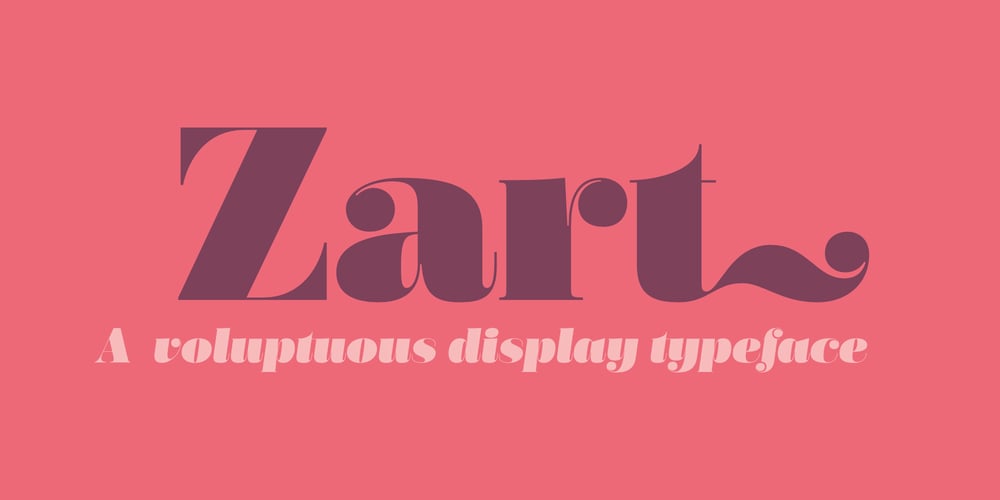
Zart Font Family was designed by Pedro Leal and published by Monotype. Zart contains 3 styles and family package options. Zart is a heavy yet delicately sensitive display typeface filled with character, a free interpretation of the classical French styles from the late eighteenth century, reimagined for modern use. While it’s vertical strokes carry the typical weight of this style, the thinness of the horizontal strokes is further extended into the characters with the introduction of large vertical ink traps. This allowed us to design slightly narrower letters which, coupled with shorter serifs, result in a overall darker expression, creating really impactful headlines. Zart is available in three versions: Regular, Italic and Script.